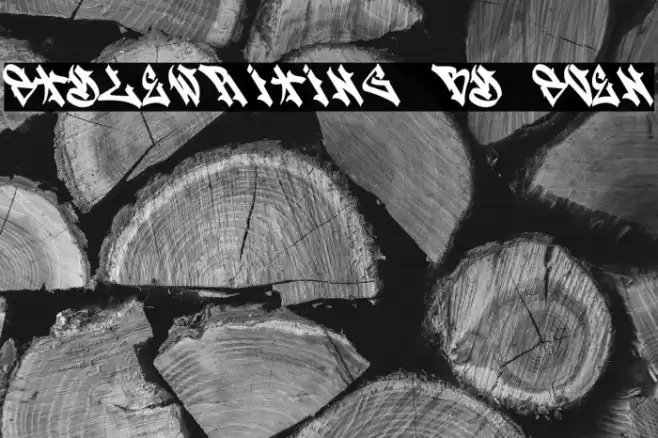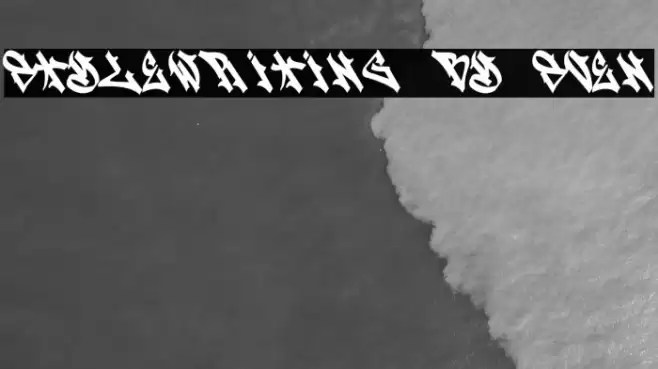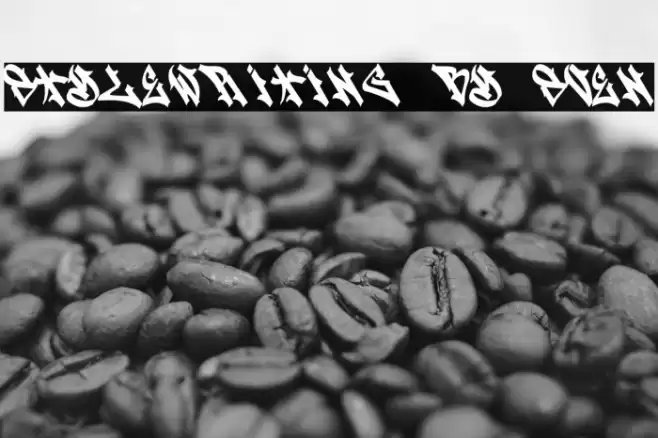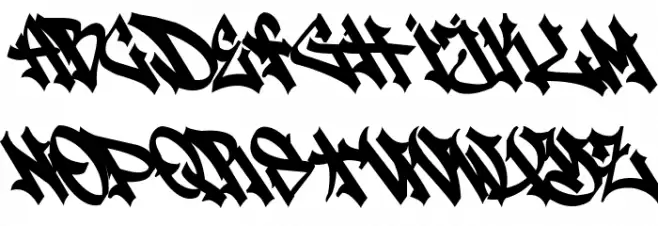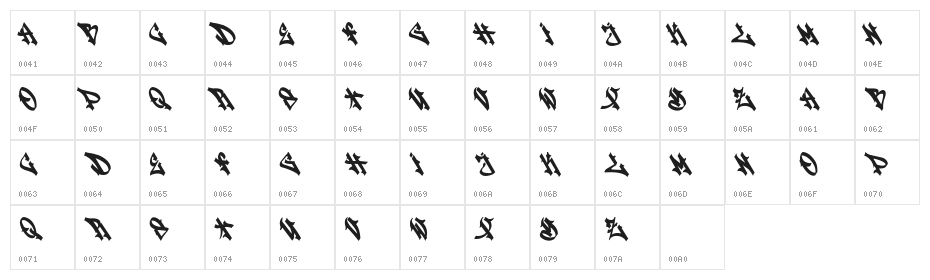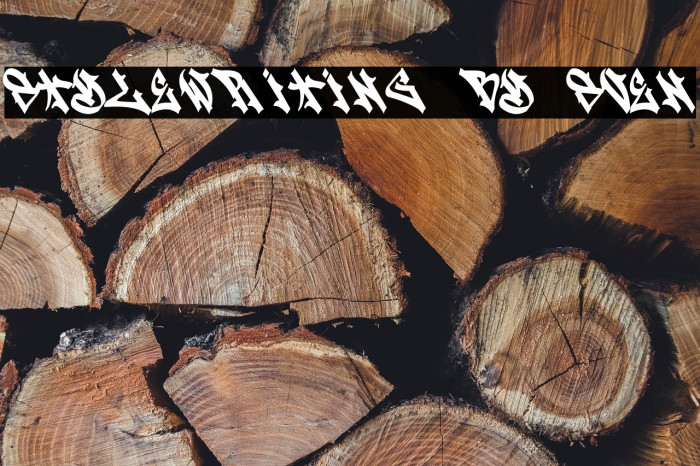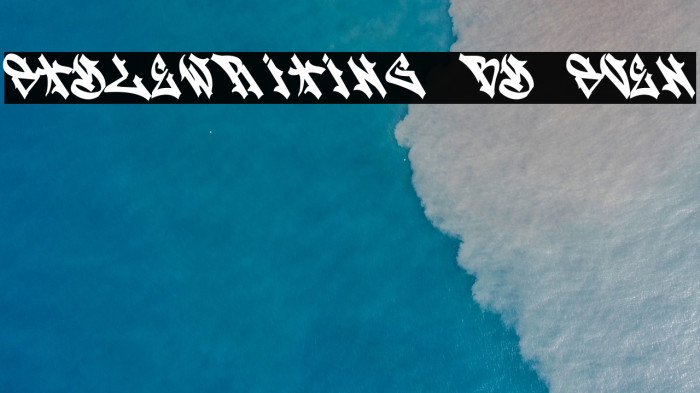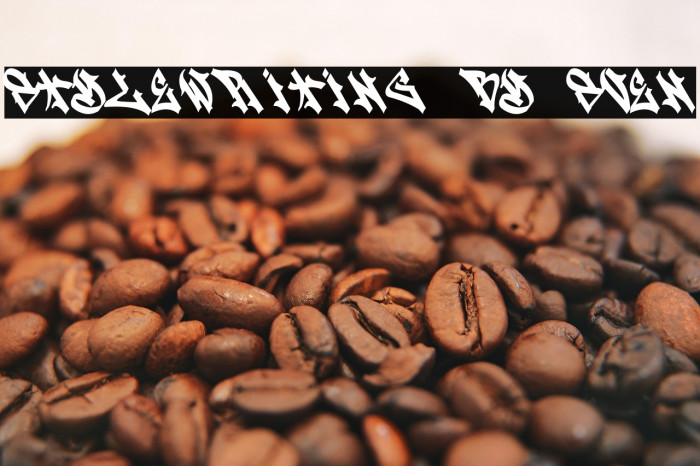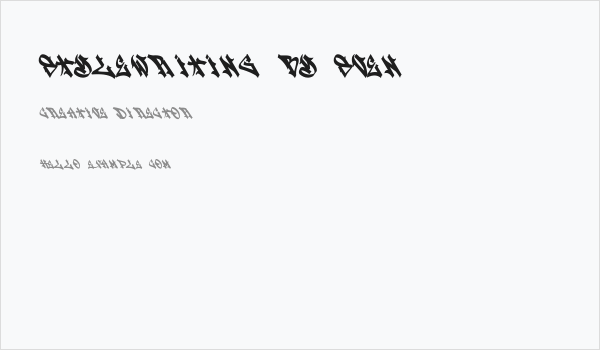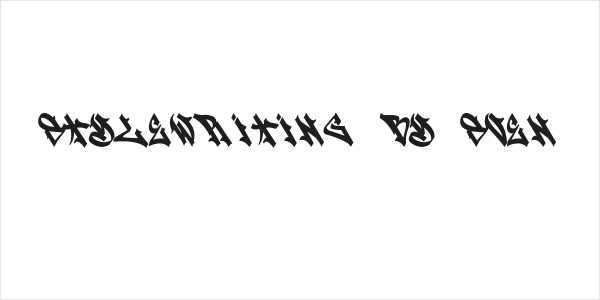
Stylewriting by Sven Font
Stylewriting by Sven Description
This font exhibits a bold, graffiti-inspired style with sharp, angular lines and a dynamic, energetic appearance. The characters are heavily stylized, with exaggerated serifs and intricate details that give them a unique, urban feel. The uppercase and lowercase letters maintain a consistent design, emphasizing the font's cohesive aesthetic. The numbers and special characters are equally expressive, fitting seamlessly into the overall design. This font is ideal for projects that require a strong, eye-catching visual impact, such as street art, posters, or music album covers.
A bold, graffiti-inspired font with sharp, angular lines and an urban aesthetic from Regular fonts.
- Font: Stylewriting by Sven
- Proposed Projects: Street art, posters, music album covers, urban-themed designs.
- Character Spacing: Tight
- Overall Style: Urban, Graffiti, Energetic